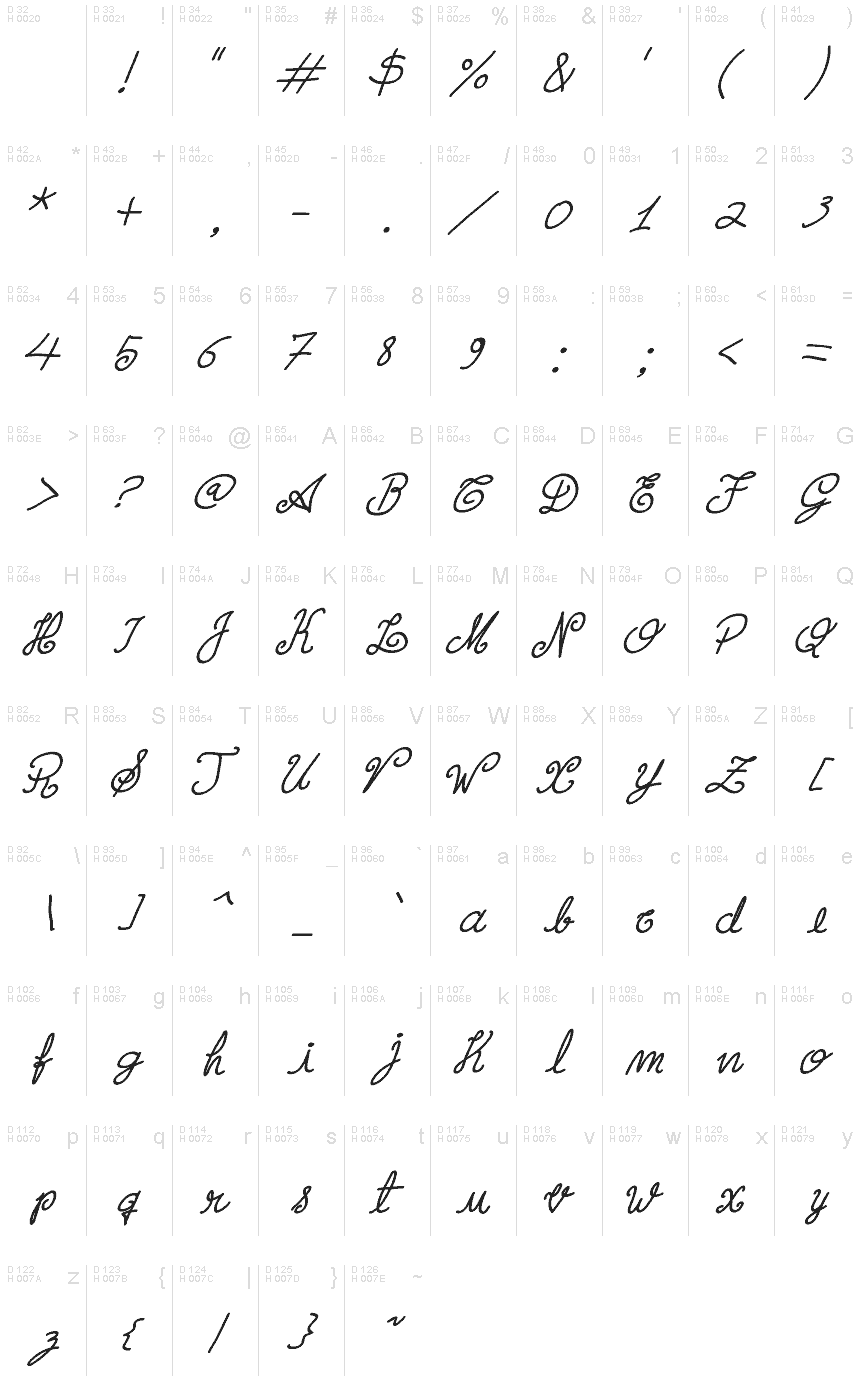
Escrita Toska Italic
Escrita Toska Italic font by Galdino Otten Fonts is a curly handwritten typeface that focuses on ornate letter detailing. It perfectly combines elegance, romanticism, vintage inspirations, and other features for an expressive final result. This is a light font with cursive letters within its structure and style.
This free handwritten font works perfectly in posters, headlines, stationery designs, social media posts, watermarks or signatures. It’s amazing in body text as long as the size isn’t exaggeratedly small to not miss any of the carefully crafted details.